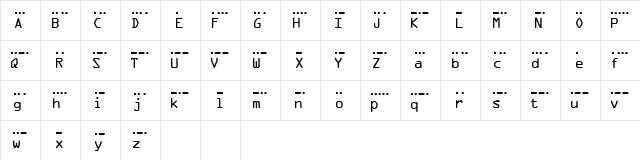
MC morse_Vail_Code_1837 S Regular
| Designer | Marek Cerajewski |
Design Context for MC morse_Vail_Code_1837 S Typeface
MC morse_Vail_Code_1837 S uses fixed-width spacing throughout, giving it the structured, systematic character associated with coding environments and technical documentation.